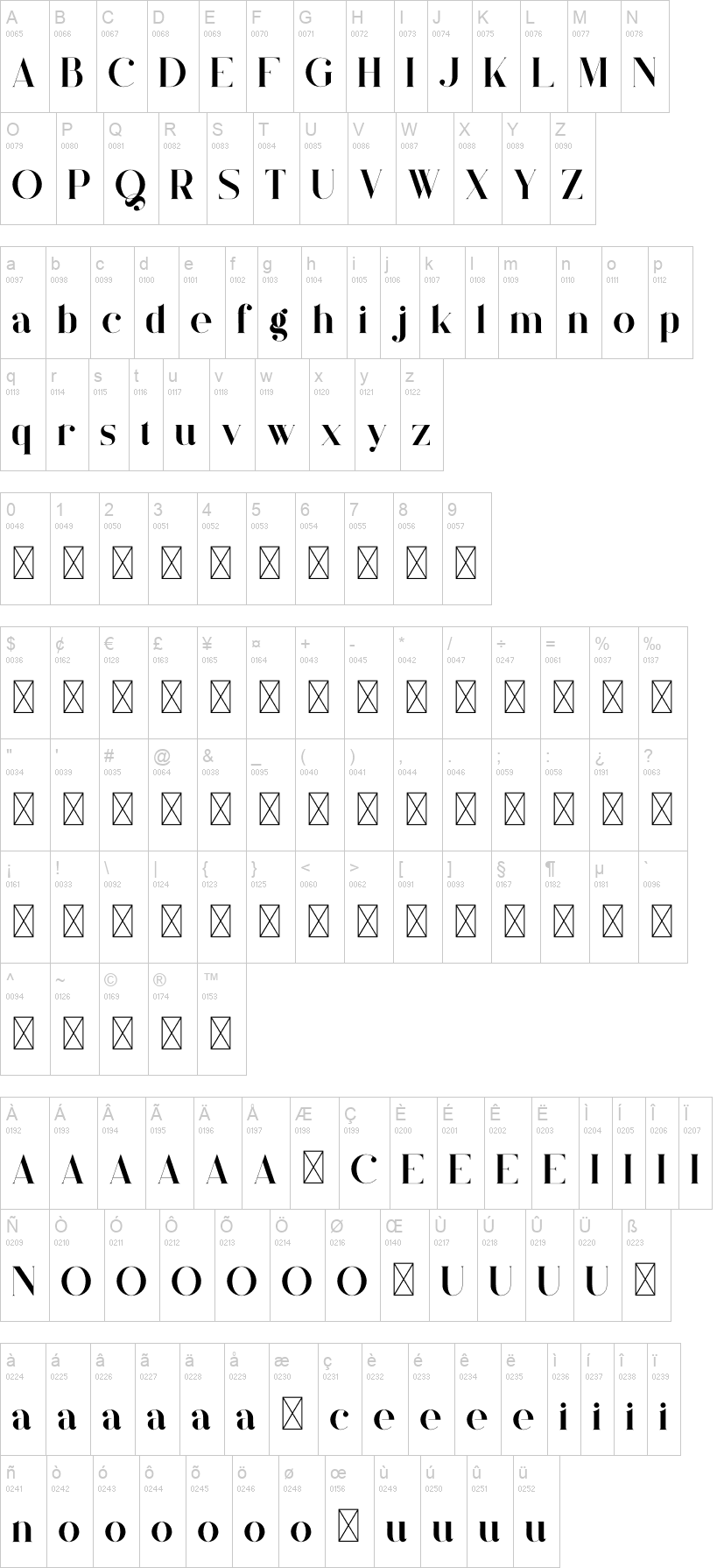
Note of the authorIntroducing Quilin Serif - latin and cyrullic
Quilin is luxury, vintage typeface loaded loaded alternate glyphs, ligatures and multilingual support. It's a very versatile font that works great in large and small sizes.
Quilin is perfect for branding projects, home-ware designs, product packaging, magazine headers - or simply as a stylish text overlay to any background image.
Uppercase, lowercase, numeral, punctuation & Symbol
Alternate glyphs
Ligatures
Multilingual support